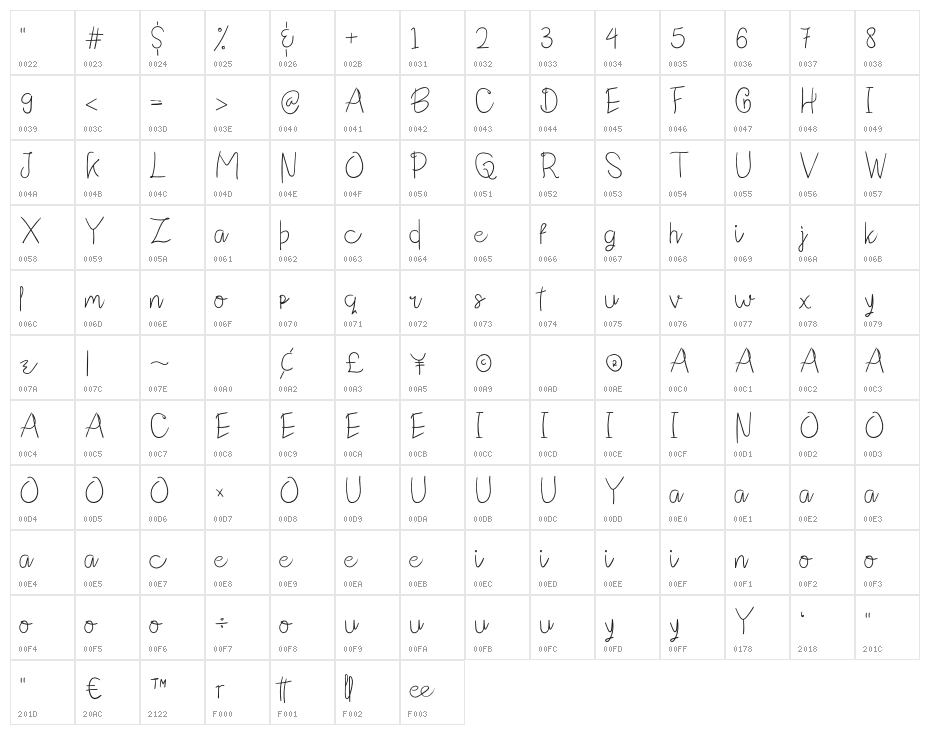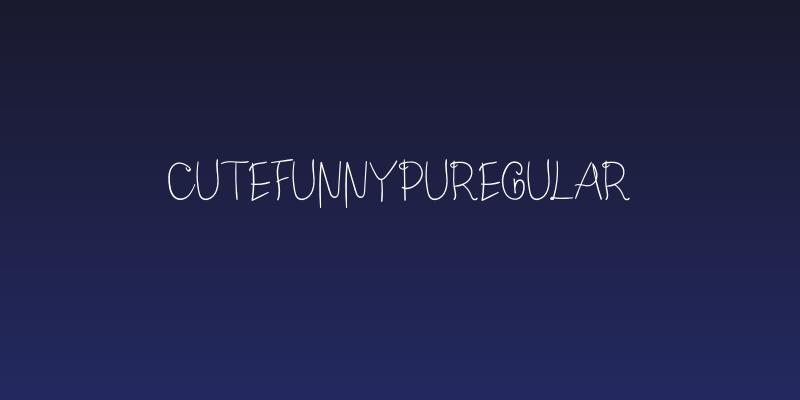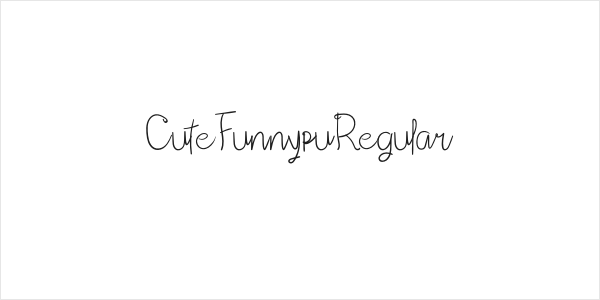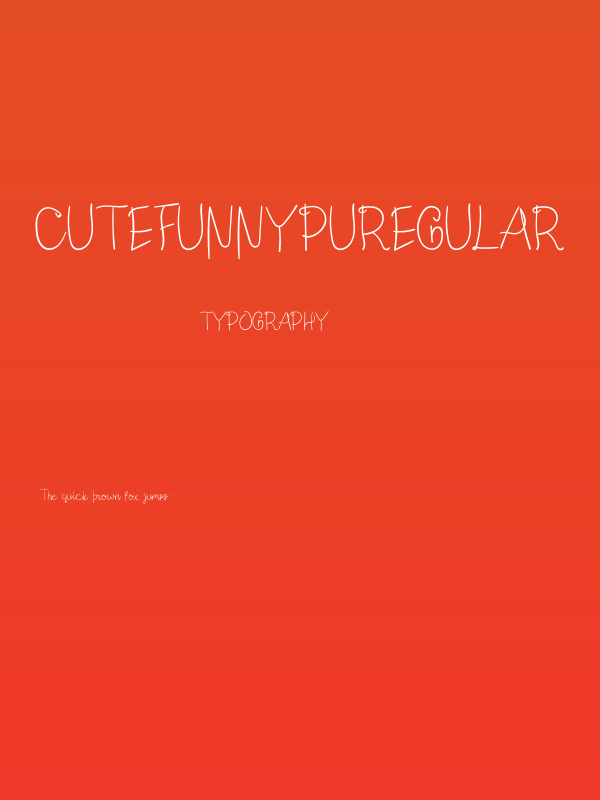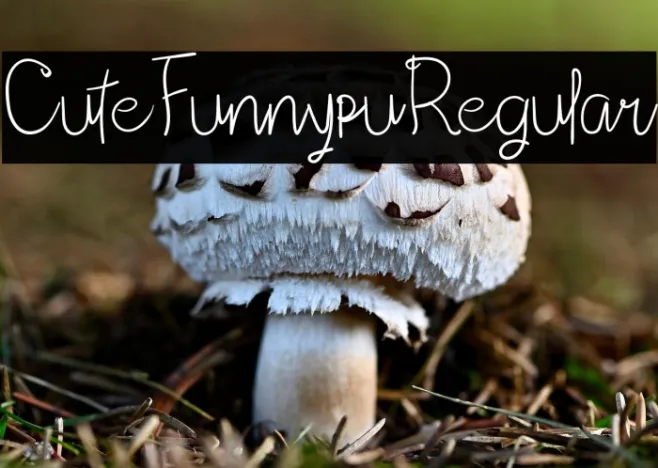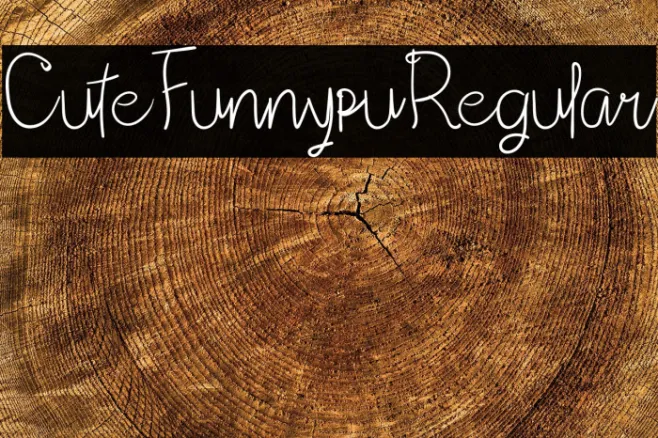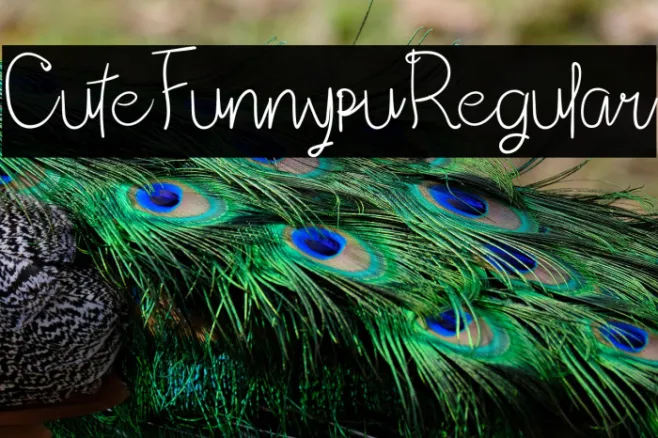
CuteFunnypuRegular Font
CuteFunnypuRegular Description
This playful and whimsical font features a handwritten style with a casual, friendly appearance. The uppercase letters are tall and slightly narrow, with a consistent stroke width that gives a clean and approachable look. The lowercase letters maintain a similar style, with some characters featuring playful loops and curves that add to the font's charm. The numbers are clear and easy to read, matching the overall style of the letters. Special characters are included, maintaining the same playful and handwritten aesthetic. This font is perfect for projects that require a personal touch, such as greeting cards, invitations, or playful branding.
| Proposed Projects | Ideal for greeting cards, invitations, playful branding, and personal projects. |